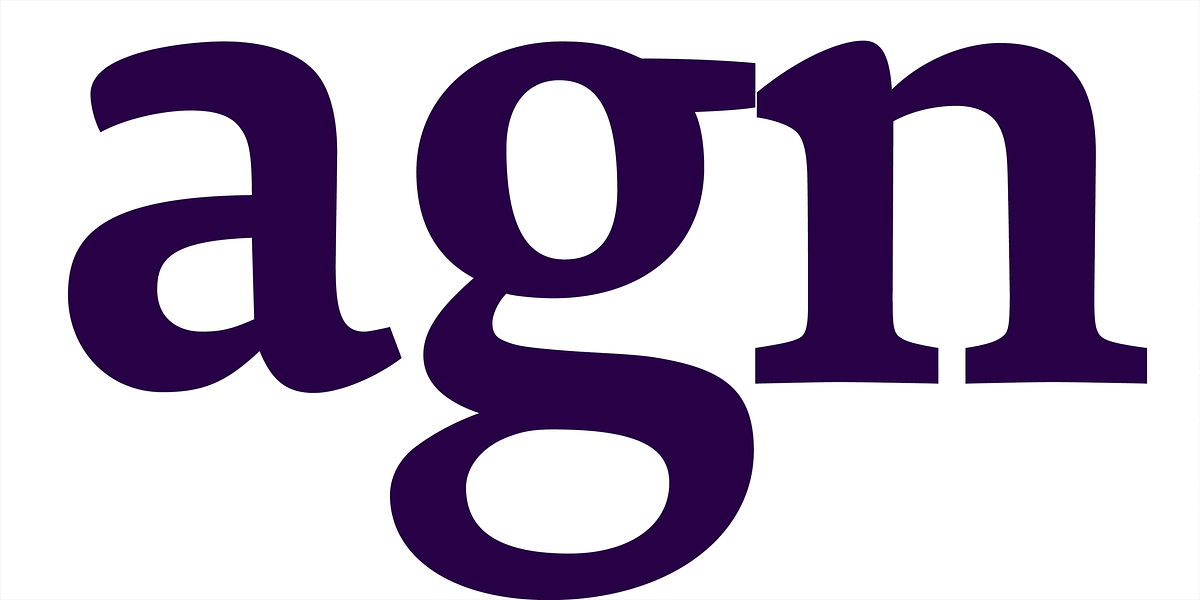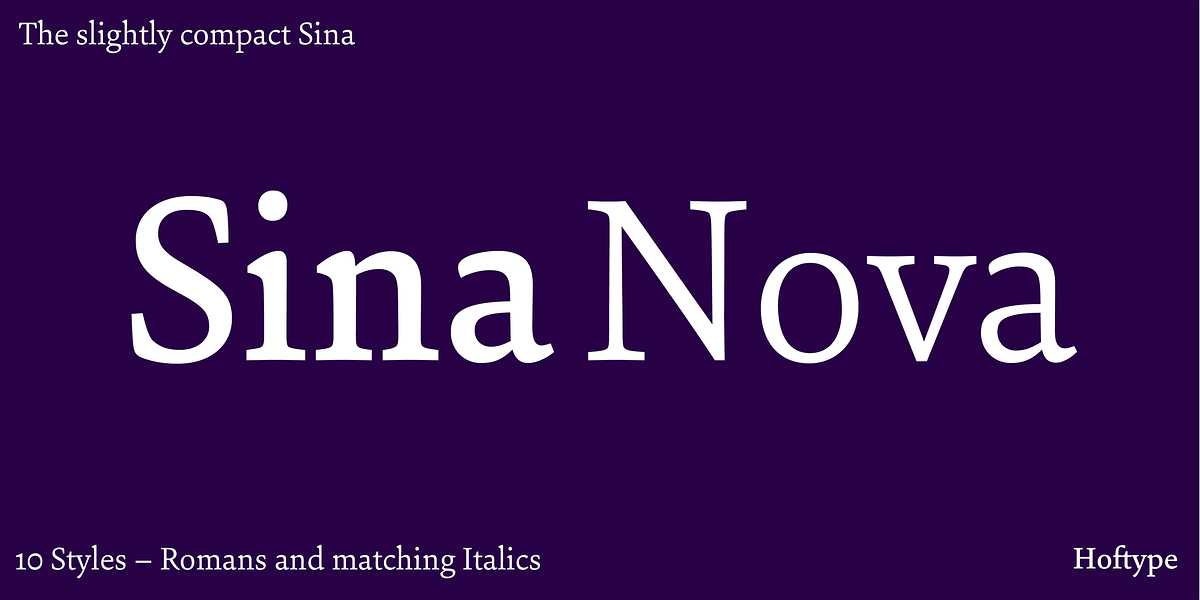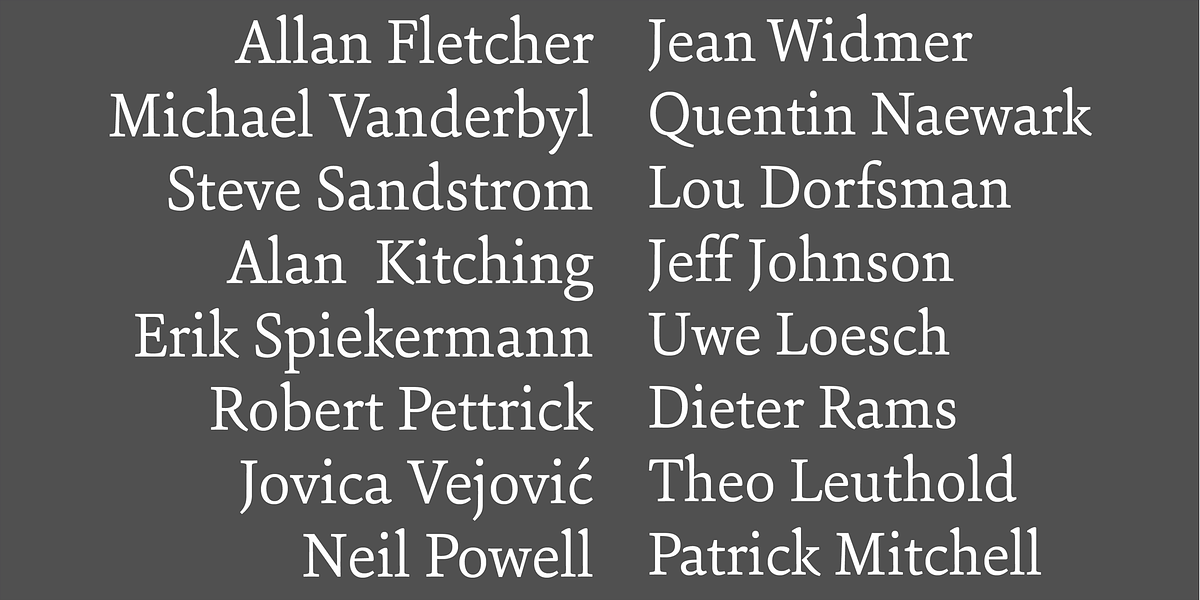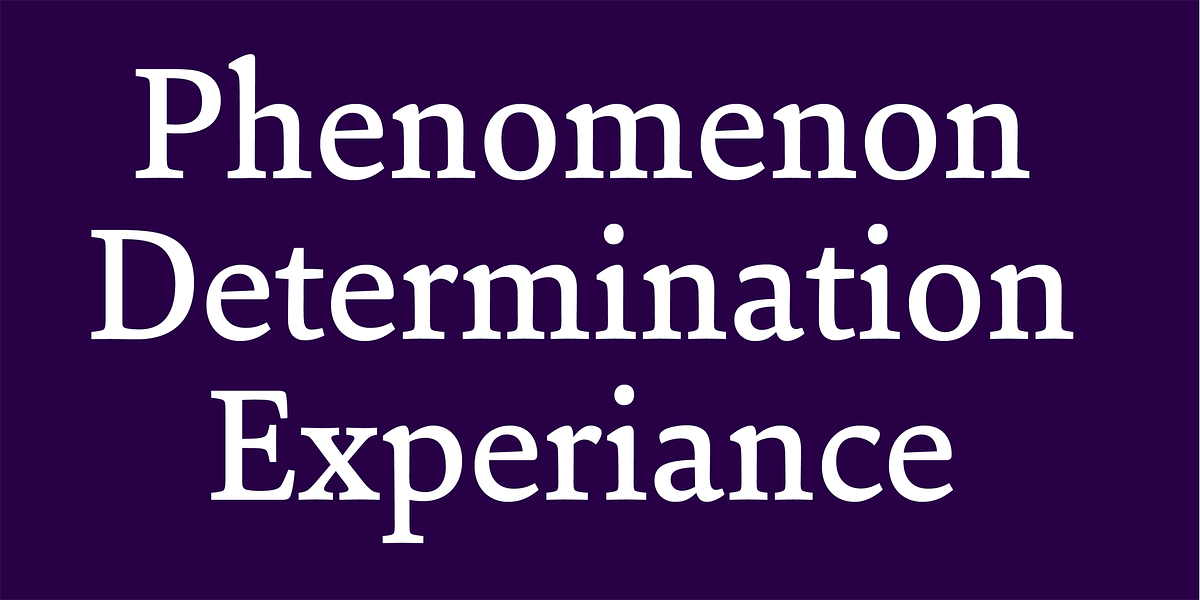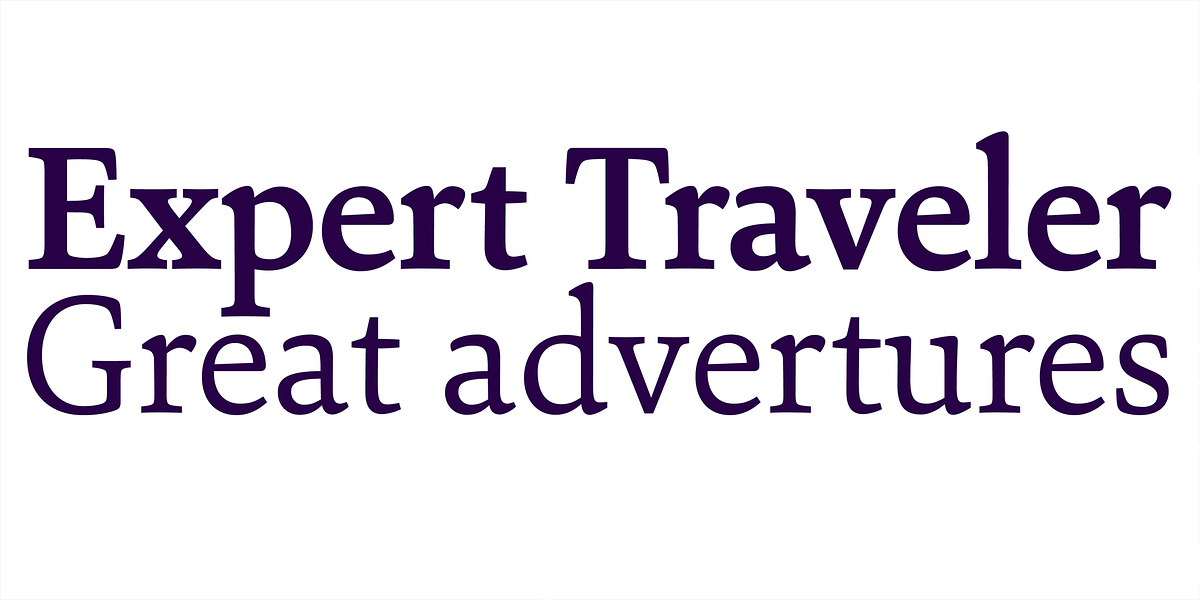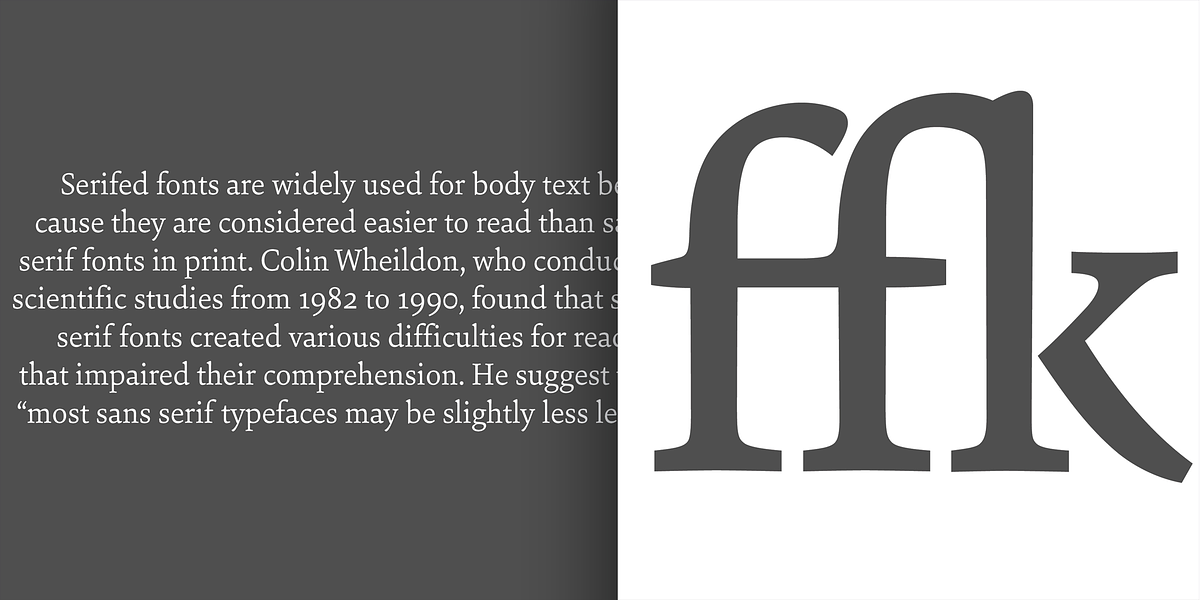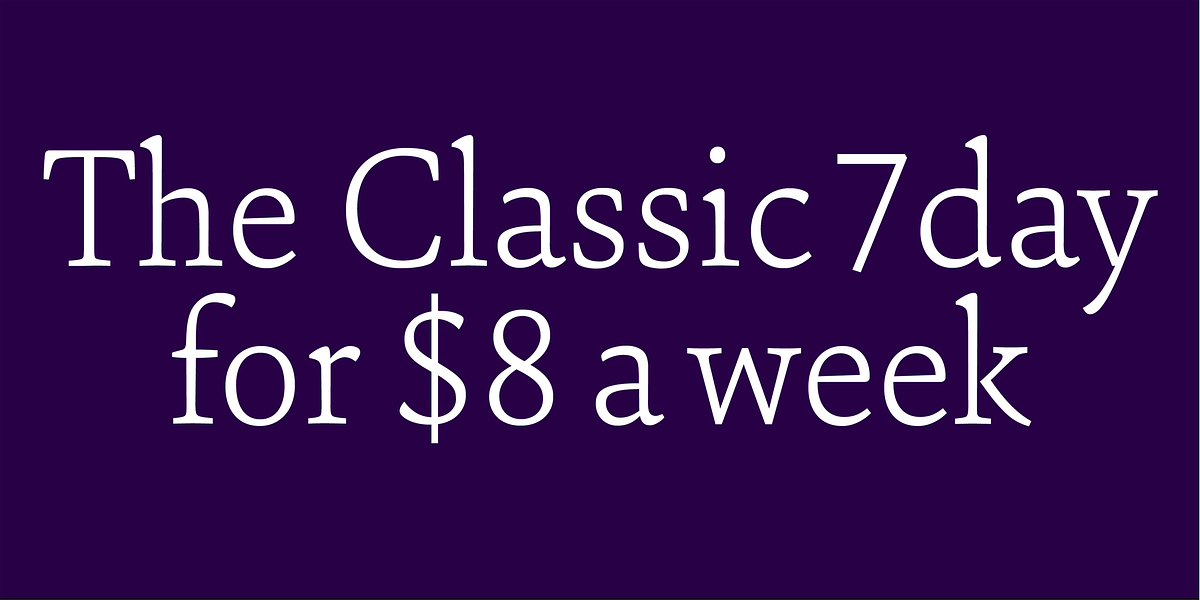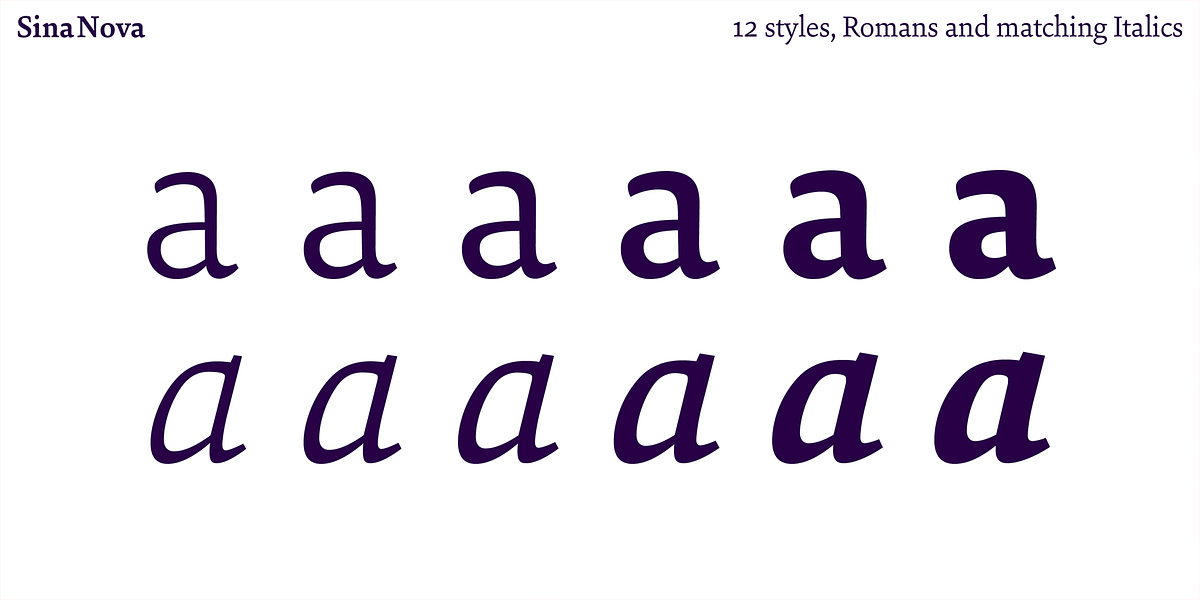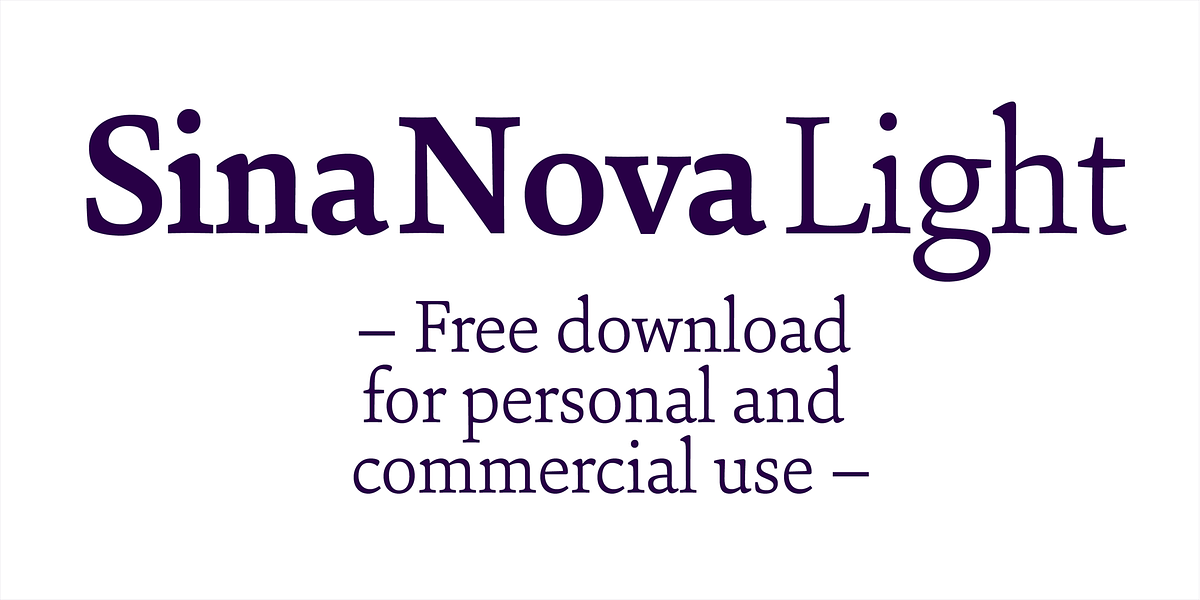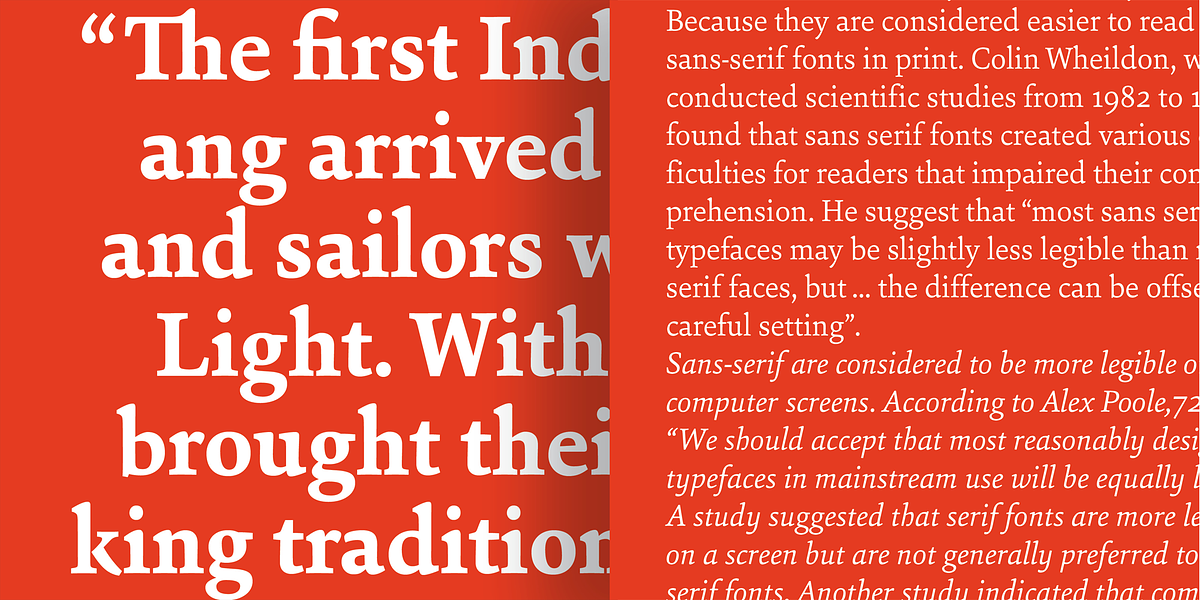
Sina Nova
Sina Nova is a contemporary serif font characterized by its slim proportions and a high x-height, making it legible even at small sizes. It's designed for versatility and can be used effectively in logos, signage, and paragraphs.